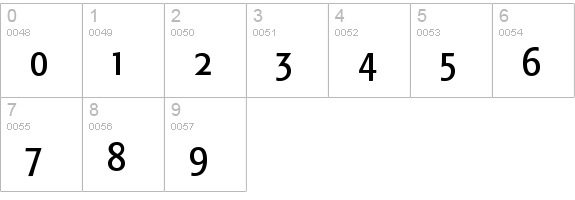
Formata ConExpert BQ Regular Font Details
Formata ConExpert BQ Regular is the standard, neutral variant in the Formata typeface family \xE2\x80\x94 well suited to general body text, paragraphs, and standard typographic work.
Formata ConExpert BQ Regular font is a modern and sleek typeface perfect for a wide range of design projects. With its clean lines and sharp edges, this font exudes professionalism and sophistication. It is ideal for branding, advertising, packaging, and more. What makes Formata ConExpert BQ Regular font even more appealing is that it is available for free download at FontsMarket.com. Now you can easily access this high-quality font without any cost, making it a valuable addition to your font library. Don't miss out on this opportunity to enhance your designs with the elegance and versatility of Formata ConExpert BQ Regular font.